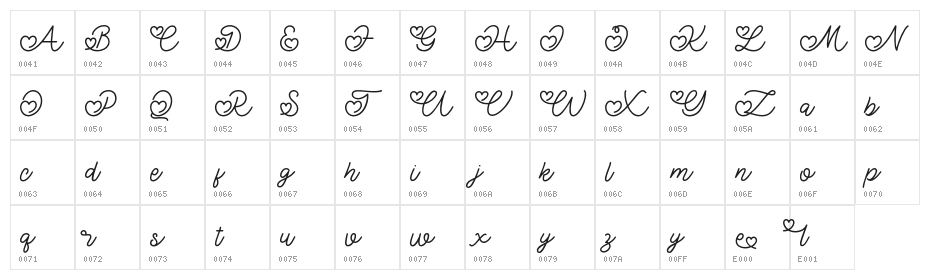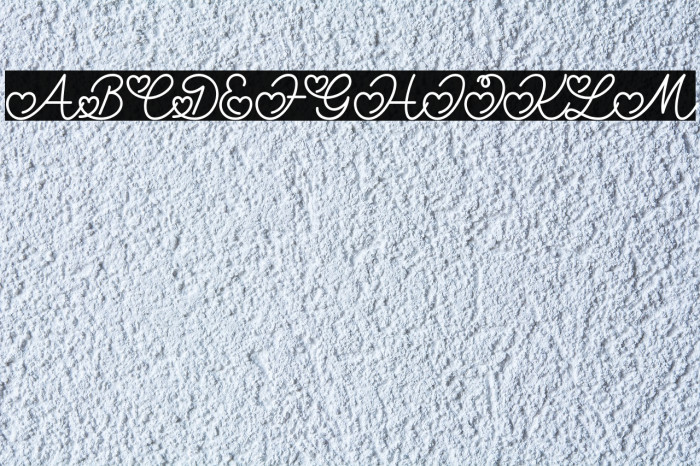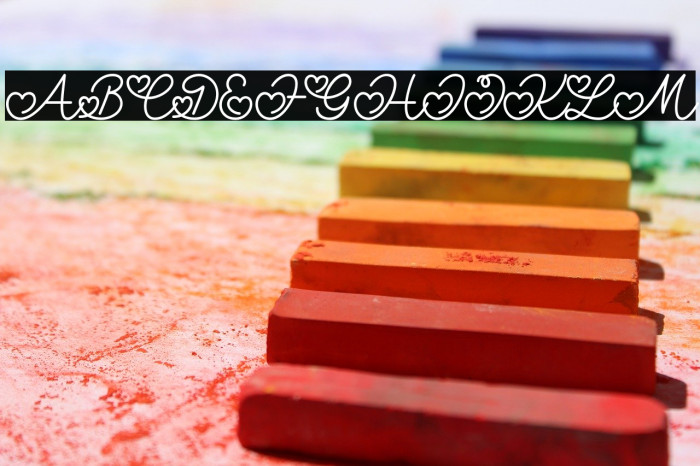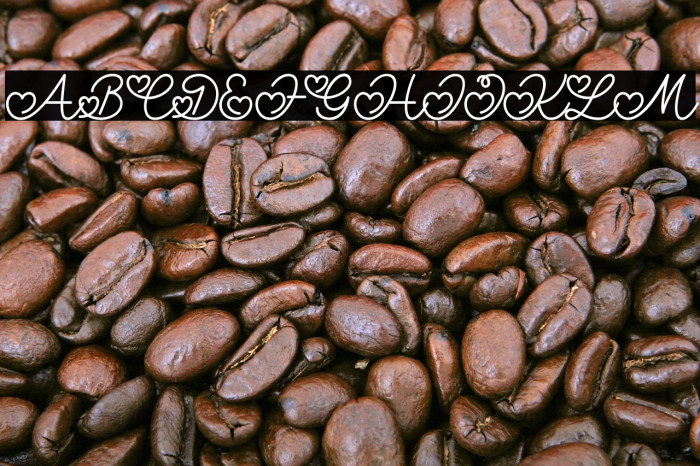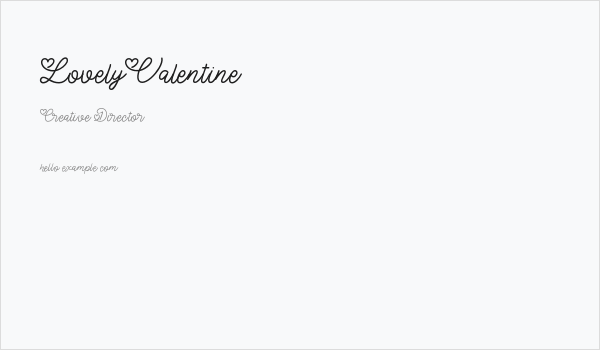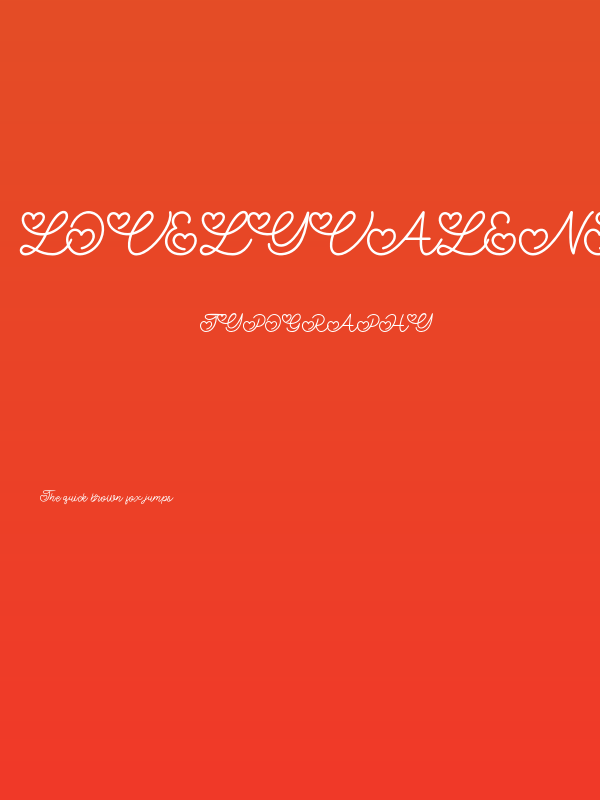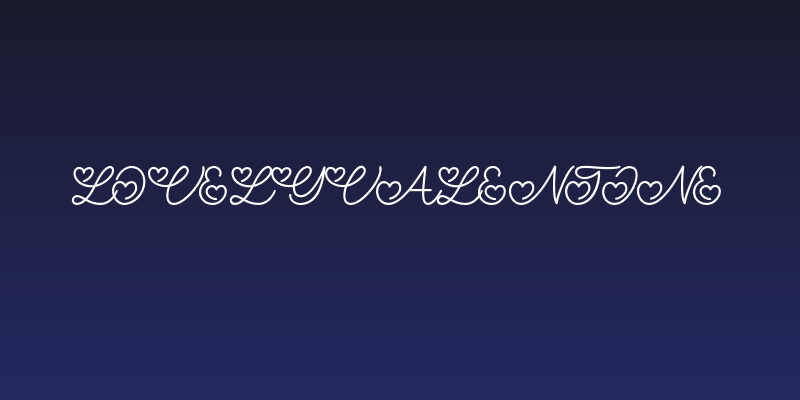
LovelyValentine Font
LovelyValentine Description
This font features a charming and romantic design, with uppercase letters adorned with heart motifs integrated into each character, creating a whimsical and affectionate appearance. The lowercase letters maintain a smooth, cursive style that complements the decorative uppercase. The overall look is playful yet elegant, making it ideal for projects that require a touch of romance or personalization. The font's flowing lines and heart embellishments make it stand out, perfect for special occasions or themed designs.
Overall StyleRomantic, Decorative
Use CaseHeadlines, Invitations, Greeting cards
Proposed ProjectsIdeal for wedding invitations, Valentine's Day cards, love letters, and romantic branding.